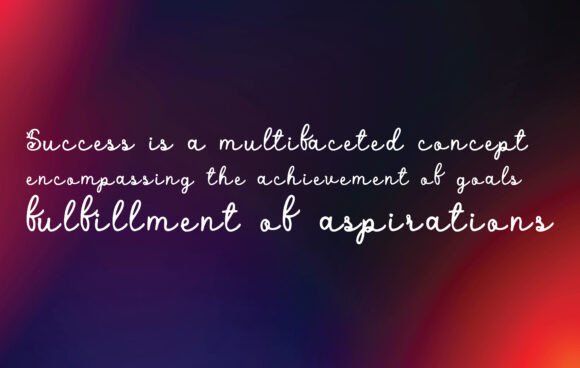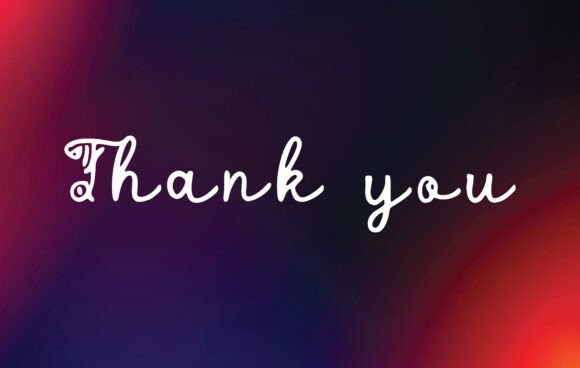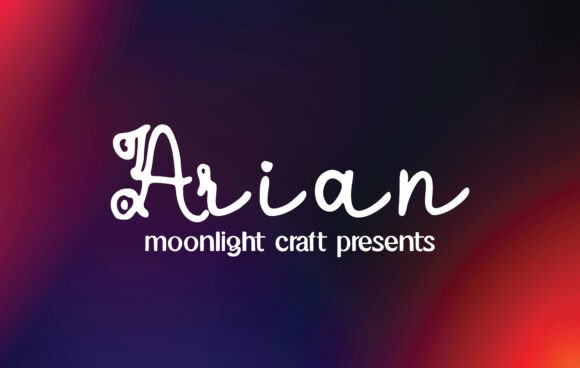
The Designer’s Delight: A Deep Dive into Arian Font
I’ll never forget the time I was working on a branding project for a trendy new coffee shop. My client was specific about wanting a font that was both elegant and playful, but I was struggling to find the perfect fit. That’s when I stumbled upon Arian Font, and it was love at first sight! 💕 In this article, I’ll share my experience with Arian Font, its features, and how to make the most of it in your designs.
An Honest Review of Arian Font
What I Love About Arian Font
- ✨ A beautiful, handwritten aesthetic that’s perfect for creative projects
- 💫 Supports OpenType features, glyphs, and stylistic alternates for added versatility
- 🎨 Ideal for logos, branding, quotes, and social media graphics
While Arian Font is an excellent choice for many projects, there are a few things to keep in mind:
- ⚠️ Some users may find the font a tad too ornate for very formal or traditional designs
- 🤔 Limited availability of condensed or italic versions, which may limit its use in certain layouts
The Story Behind Arian Font
Arian Font was designed with the intention of creating a beautiful, versatile font that would inspire creativity. Its creator drew inspiration from traditional handwriting and calligraphy, with a modern twist. The result is a font that’s both elegant and approachable.
Q: What type of projects is Arian Font best suited for?
A: Arian Font is ideal for creative projects, such as logos, branding, quotes, and social media graphics.
Q: Does Arian Font support OpenType features?
A: Yes, Arian Font supports OpenType features, glyphs, and stylistic alternates, making it a versatile choice for designers.